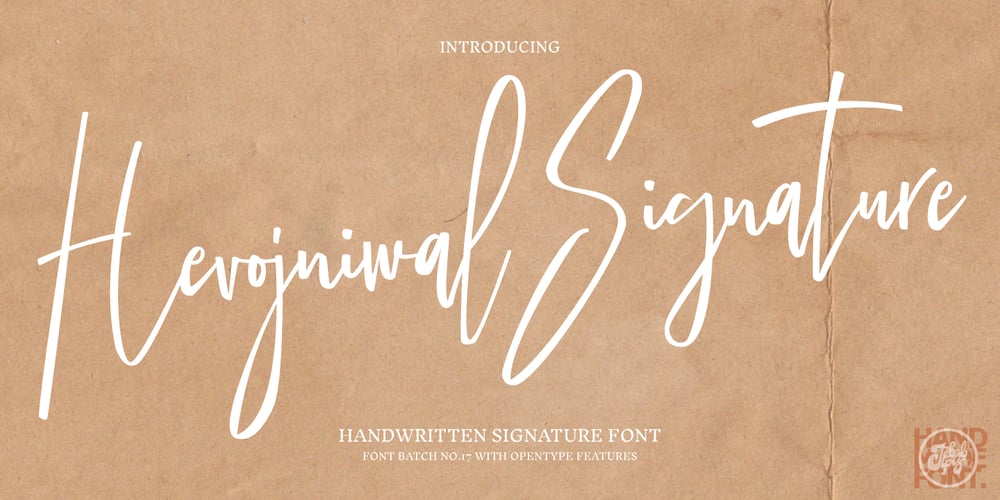
Hevojniwal Signature Font Family was designed by Dzulka Elfira and published by Tebaltipis Studio. Hevojniwal Signature contains 1 styles and family package options. Hevojniwal Signature with a handmade Signature style, decorative characters and a dancing baseline! So beautiful on invitation like greeting cards, branding materials, business cards, quotes, posters, and more!!Hevojniwal Signature come with 200+ glyphs. The alternative characters were divided into several Open Type features such as Swash, Stylistic Sets, Stylistic Alternates, and Ligature. The Open Type features can be accessed by using Open Type savvy programs such as Adobe Illustrator, Adobe InDesign, Adobe Photoshop Corel Draw X version, And Microsoft Word. And this Font has given PUA unicode (specially coded fonts). so that all the alternate characters can easily be accessed in full by a craftsman or designer.Hevojniwal Signature Features :Uppercase & Lowercase International Languange & Symbols Support Punctuation & Number PUA Unicode Range Standard Ligatures Discretionary Ligatures Stylistic Alternates Stylistic Set.